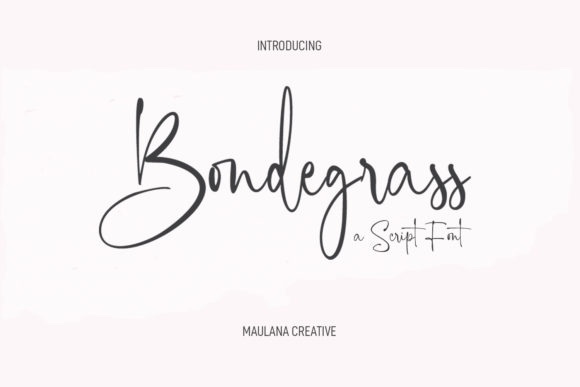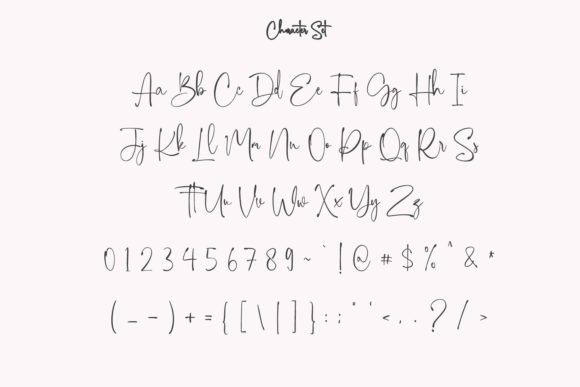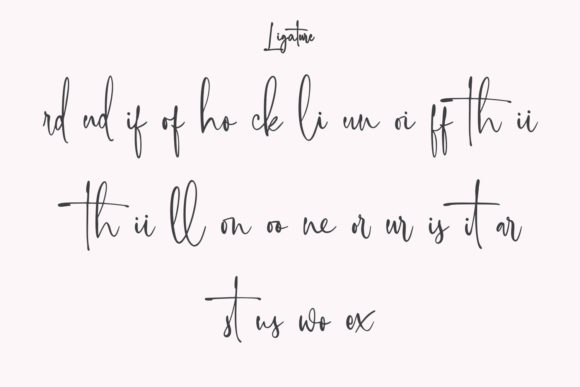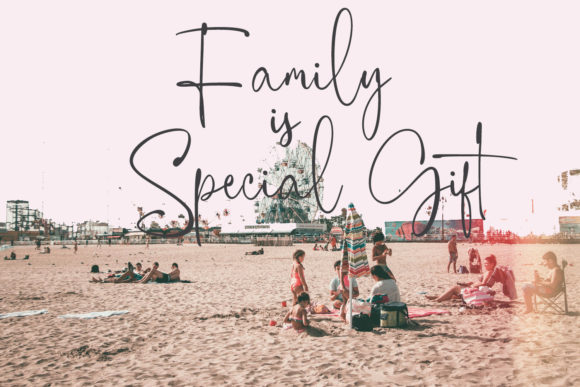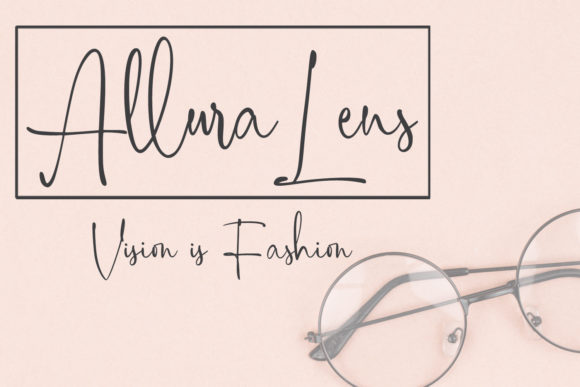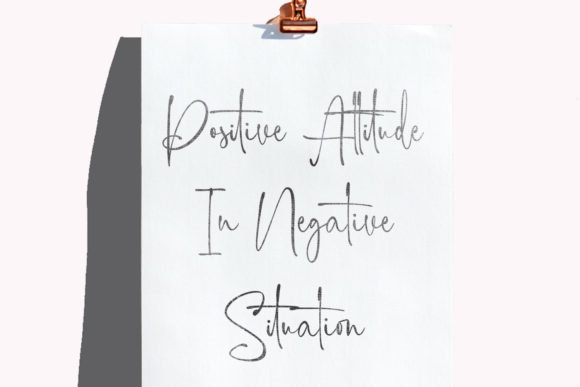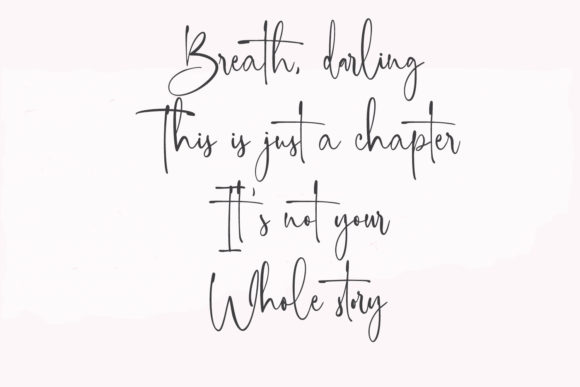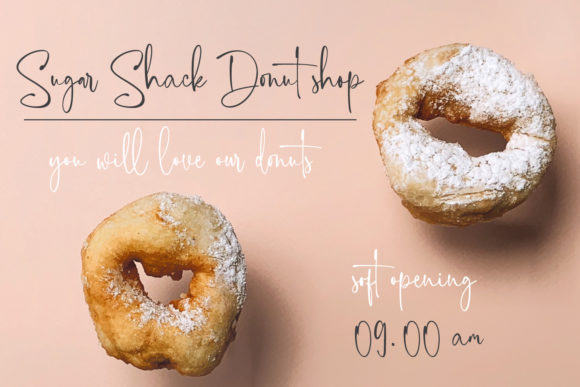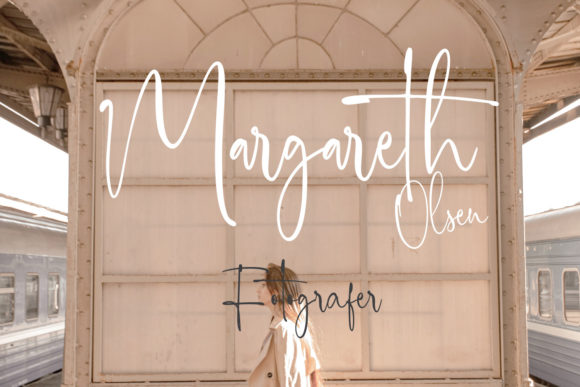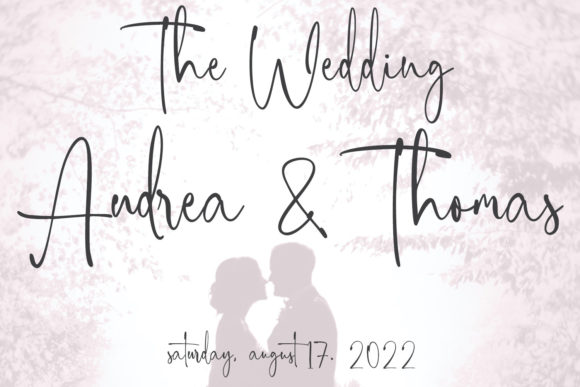
Bondegrass Script Font
About Bondegrass Script Font
Bondegrass Script is a sophisticated and elegant handwritten script font that adds a touch of luxury and style to a wide range of design projects. Its fancy and elaborate strokes create a sense of refinement and grace, making it a versatile asset for your font collection.
This font’s versatility is a key feature, as it seamlessly adapts to various design themes and topics. Whether you’re working on wedding invitations, branding materials, logos, social media graphics, or any other creative endeavor, Bondegrass Script can elevate the overall aesthetic and make your design stand out.
The intricate details of the script font contribute to its ability to enhance creations. The unique flourishes, elegant curves, and graceful strokes add an artistic touch to your typography. It’s not just a font; it’s a tool for expressing creativity and adding an extra layer of sophistication to your designs.
Bondegrass Script’s potential to enhance creations is not limited to any specific context. It’s equally suitable for formal and informal projects, allowing you to use it for high-end events, luxury branding, as well as more playful and creative endeavors. Its adaptability means that you can rely on it to bring a touch of elegance to any project you undertake.
In your font library, Bondegrass Script is a valuable addition that can be pulled out whenever you want to infuse your designs with a sense of class and charm. Its potential goes beyond the surface, as it has the ability to evoke emotions and convey messages through its elegant aesthetics.
Overall, Bondegrass Script is more than just a font – it’s a tool that empowers your creativity and enhances your design projects. With its fancy and handwritten style, it has the power to transform ordinary creations into extraordinary ones, making it an invaluable asset for designers seeking to add a touch of sophistication and allure to their work.